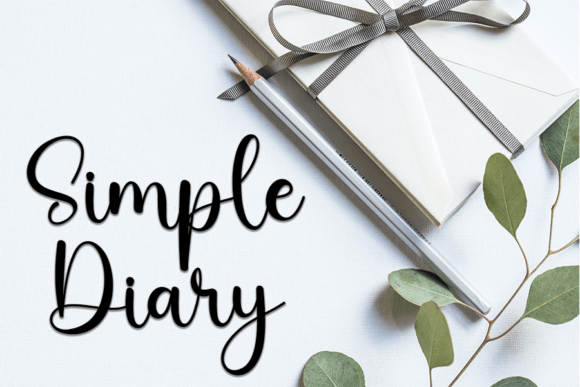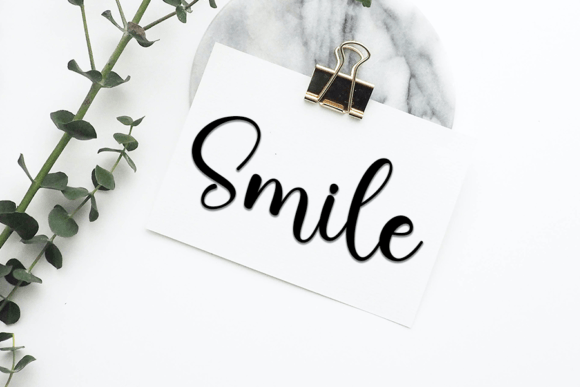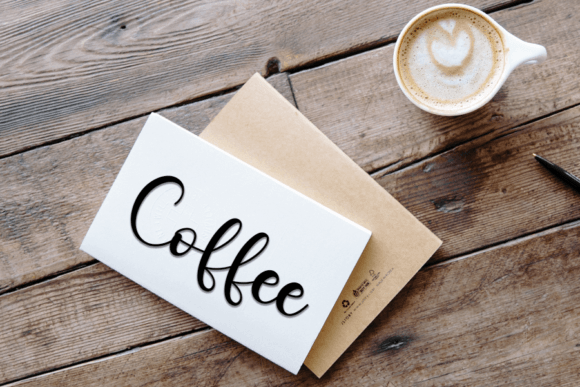
Snow Font
About Snow Font
Snow is a unique and beautiful script font. Whether you’re using it for crafts, digital design, presentations, or creating greeting cards, this font has the potential to become your go-to font, whatever the occasion.